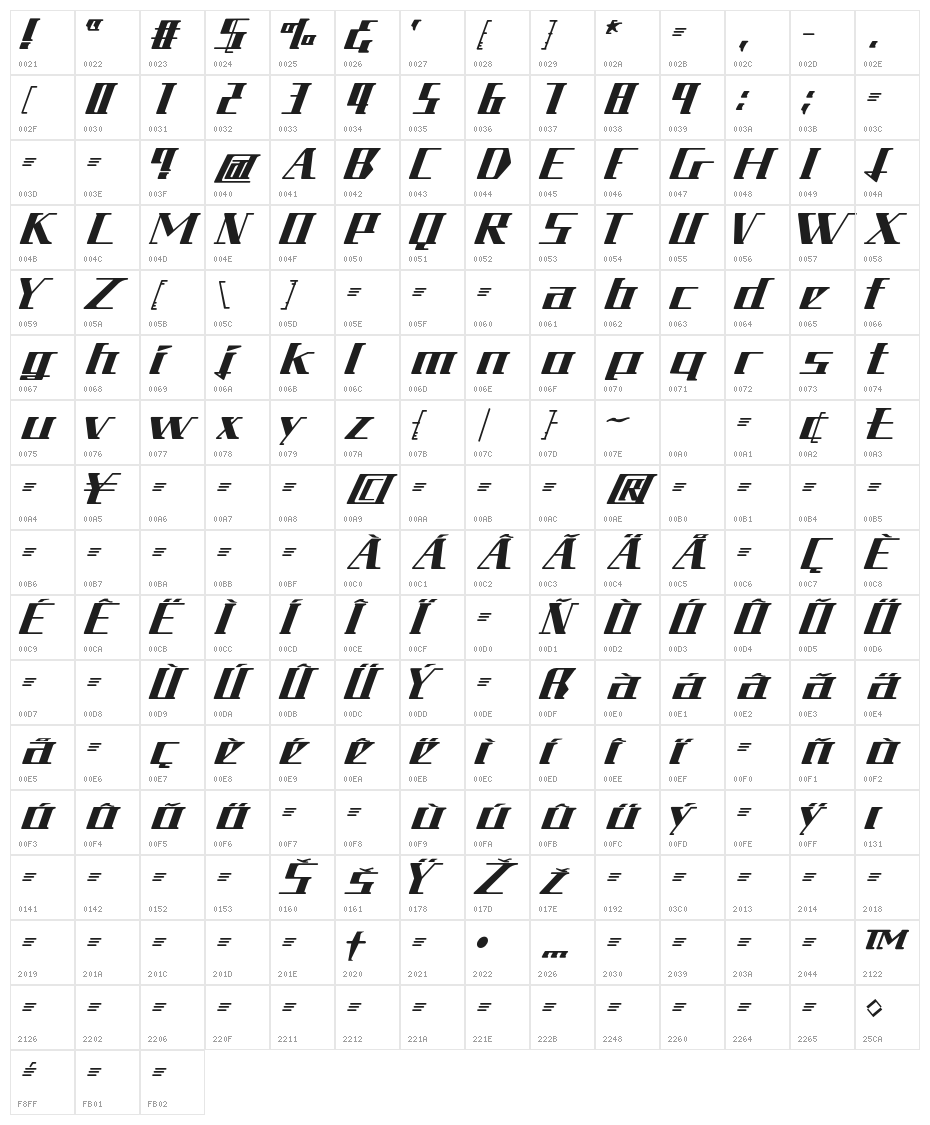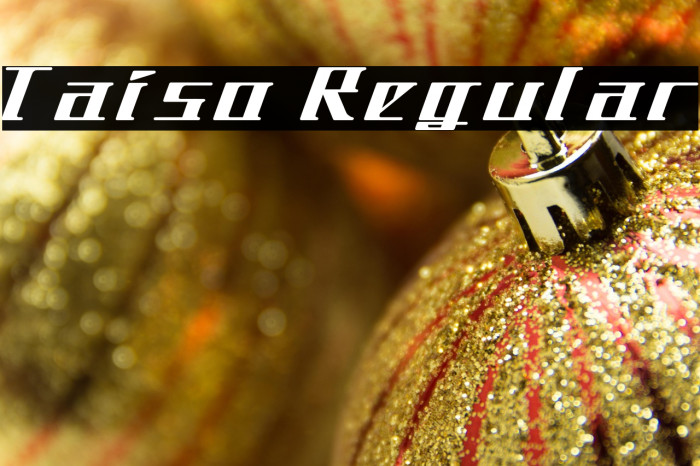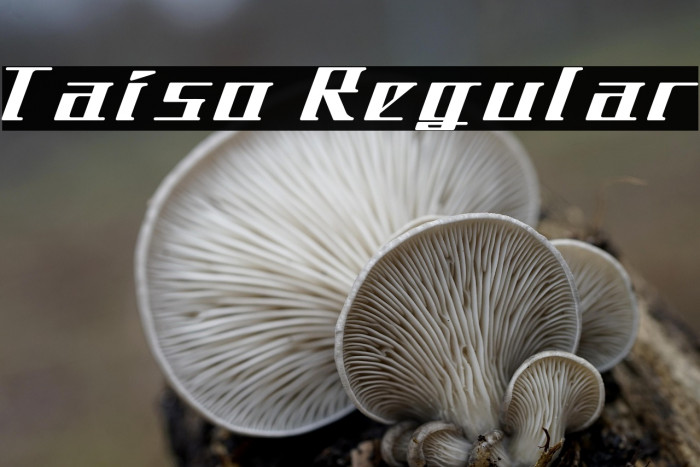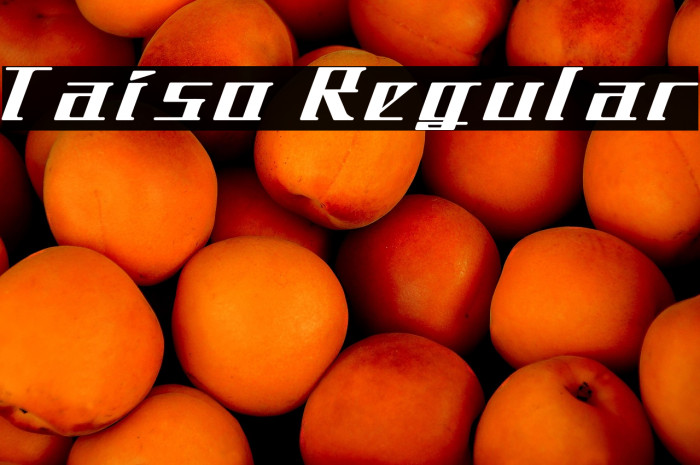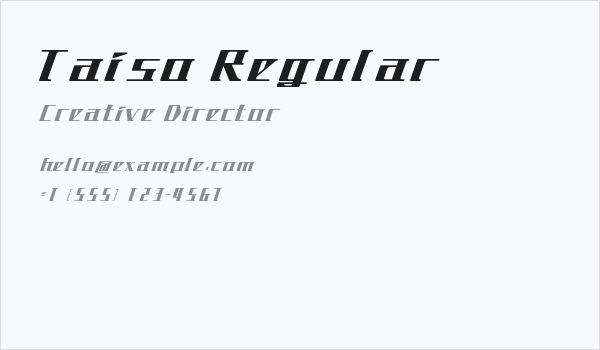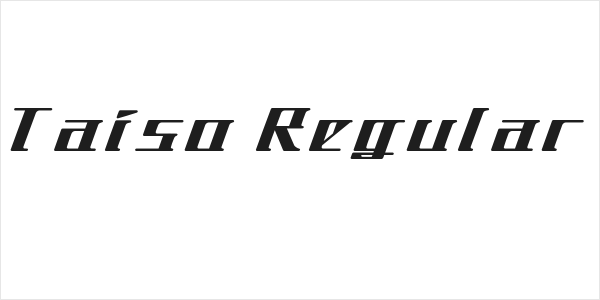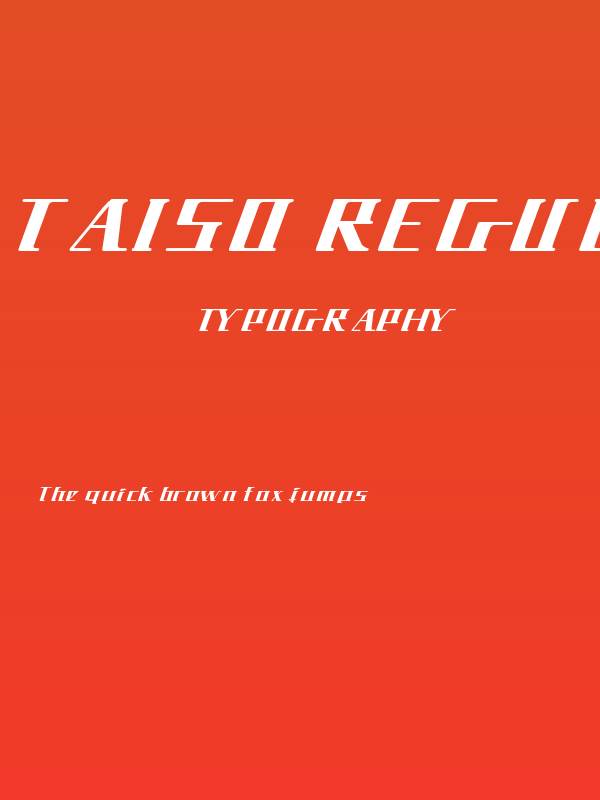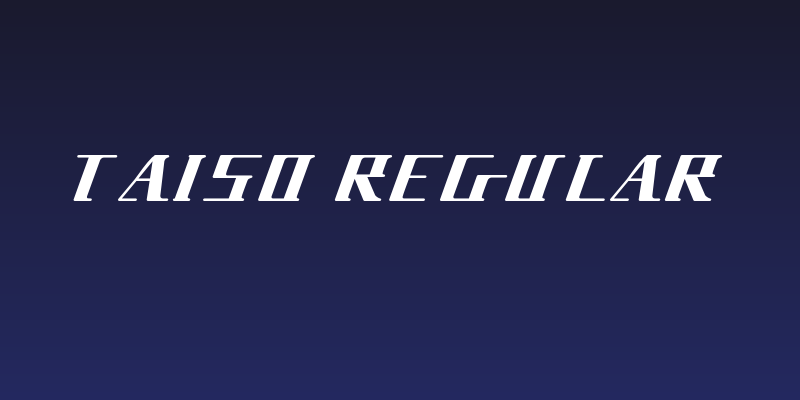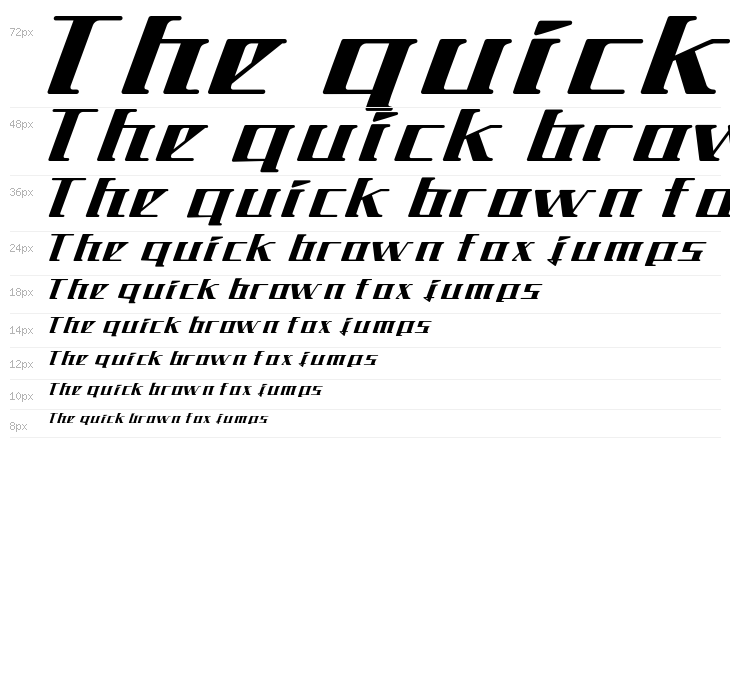
Taiso Regular Font
Taiso Regular Description
This font features a bold and angular design, characterized by sharp edges and a dynamic, forward-leaning stance. The uppercase letters are particularly striking, with a geometric style that suggests movement and energy. The lowercase letters maintain this angular aesthetic, providing a cohesive look across all characters. Numbers and special characters are designed with the same boldness and angularity, ensuring consistency throughout. The overall appearance is modern and slightly futuristic, making it suitable for projects that require a strong visual impact.
| Proposed Projects | Ideal for branding, posters, and any design needing a strong, modern aesthetic. |